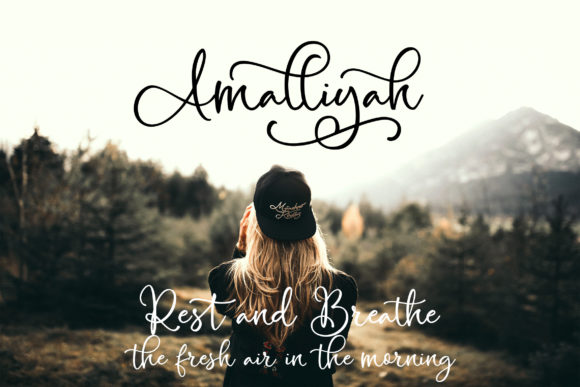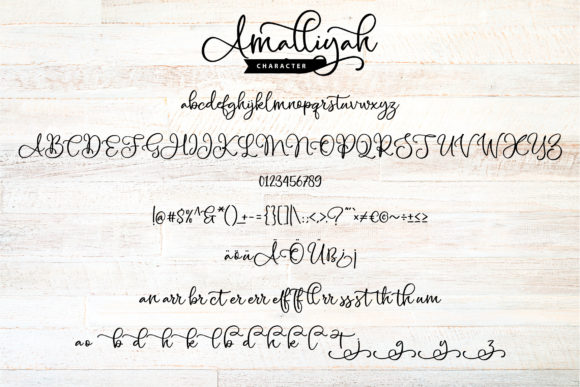
Amalliyah Font
About Amalliyah Font
Amalliyah is dainty and vintage styled script font. It is PUA encoded which means you can access all glyphs and swashes with ease!